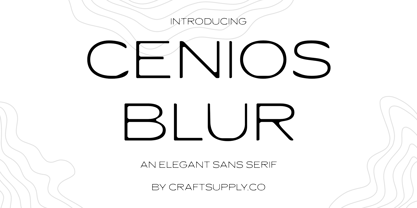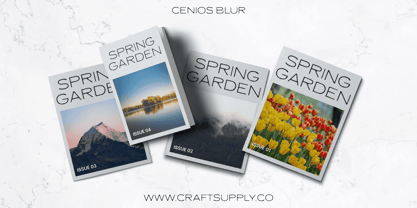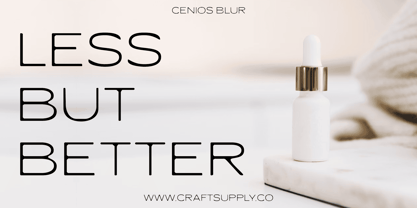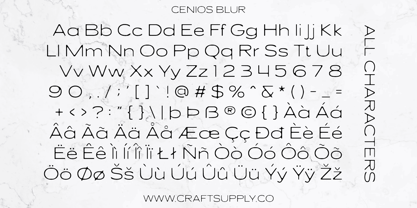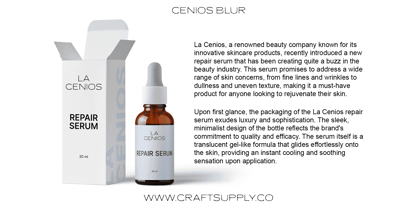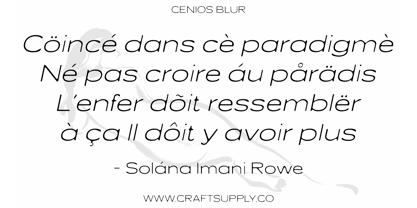
Cenios Blur
by Craft Supply Co
The Cenios Blur Font Family was designed by Trio Nazzar Saputra, Wahyu Hadi Yuana and published by Craft Supply Co. Cenios Blur contains 2 styles and family package options.
Cenios Blur: Where Modern Elegance Meets Dynamic Blur
Redefining Elegance in Modern Design
Cenios Blur redefines elegance with its modern sans serif style and dynamic blur effects. Crafted for sophistication and contemporary appeal, it stands out in various design projects.
Dynamic Blur Effects for a Modern Touch
Experience Cenios Blur’s modernity through its dynamic blur effects, adding a lively element to your designs. The subtle blur enhances elegance, ideal for captivating headlines, banners, and other display needs.
Ideal for Display
Tailored for display, Cenios Blur excels in larger sizes, ensuring maximum impact. Whether for posters, branding, or digital interfaces, its elegant yet modern aesthetic elevates any project.
Versatile and User-Friendly
Despite its sophisticated appearance, Cenios Blur is versatile and easy to integrate into various designs. Its modern sans serif style and elegant blur effects add sophistication and modernity to any project.